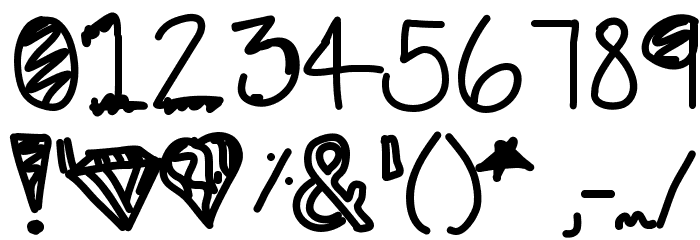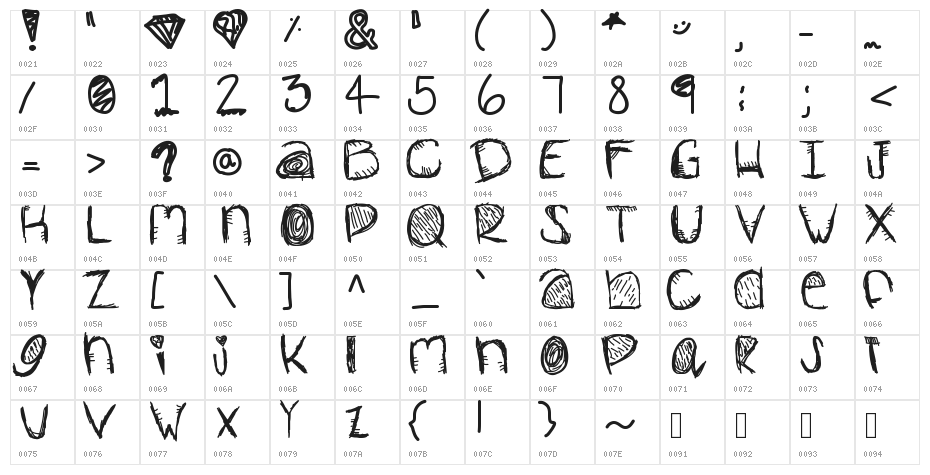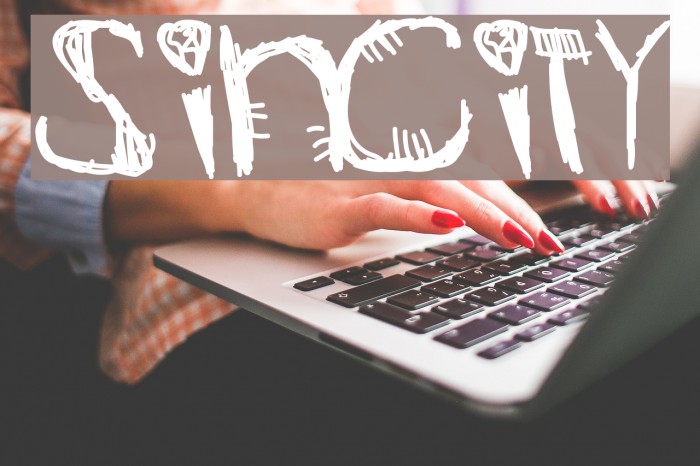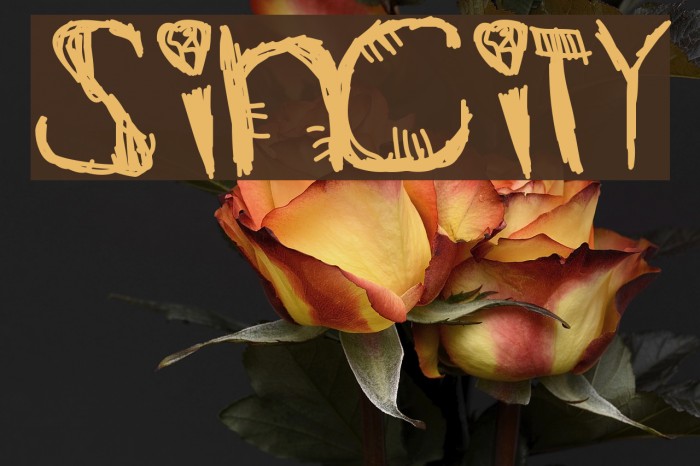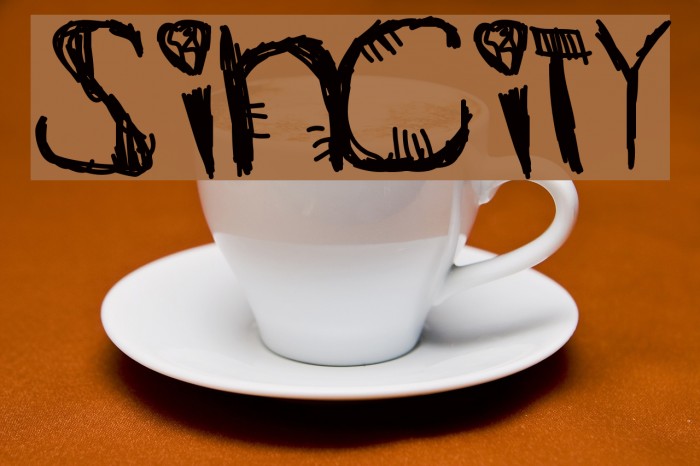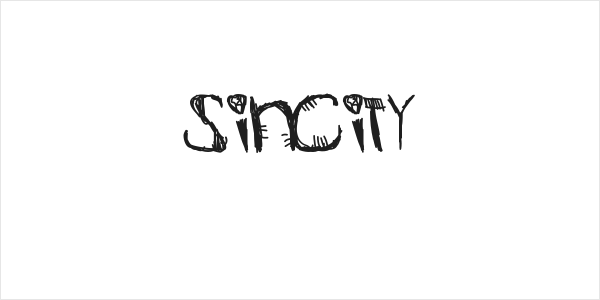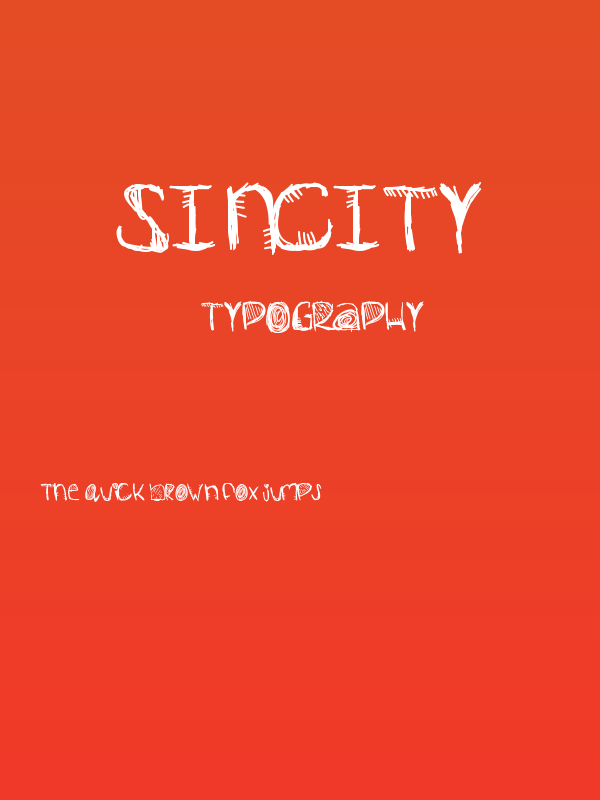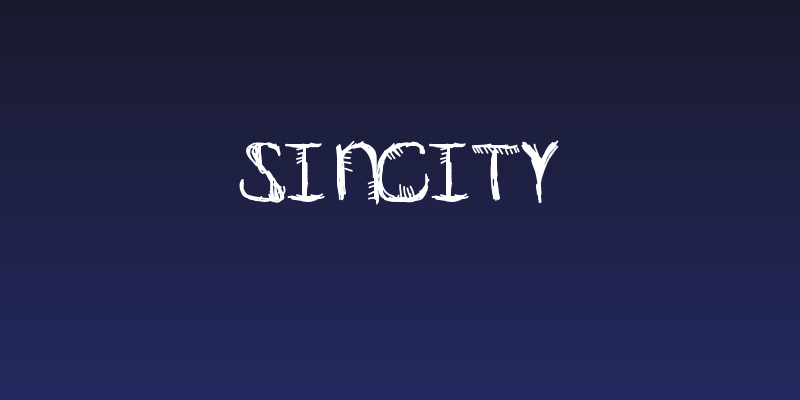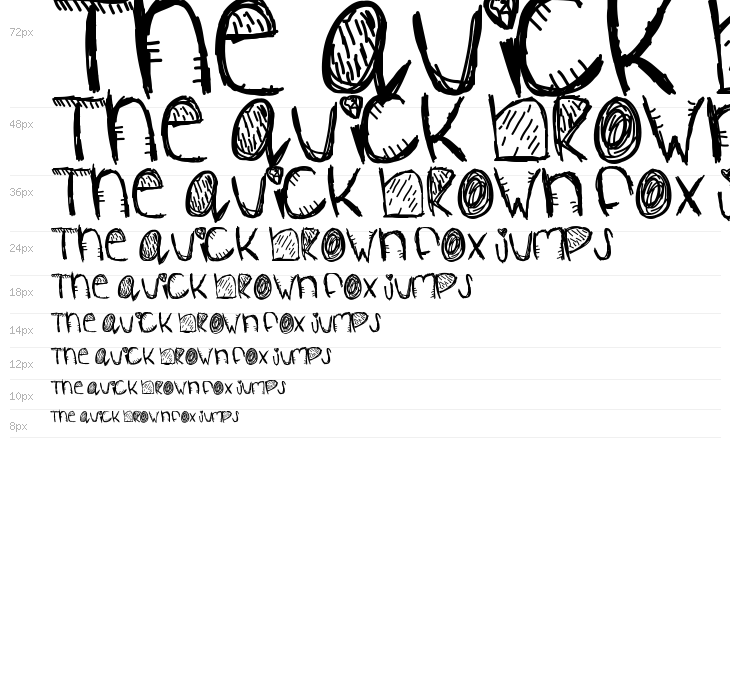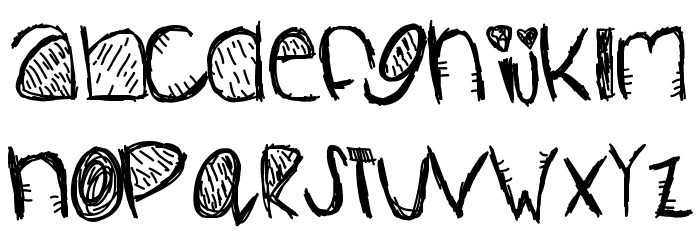
SinCity Font
SinCity Description
This font exudes a bold and edgy personality, characterized by its rough, hand-drawn appearance. The letters are irregular and jagged, giving off a rebellious and urban vibe. Each character is unique, with varying stroke thicknesses and a sketch-like quality that adds to its raw aesthetic. The numbers and special characters maintain this theme, offering a cohesive look across the entire set. This font is perfect for projects that aim to capture attention with a gritty, street-inspired style.
| Overall Style | Urban, Edgy, Hand-drawn |
| Proposed Projects | Ideal for street art designs, music album covers, edgy posters, and urban-themed branding. |